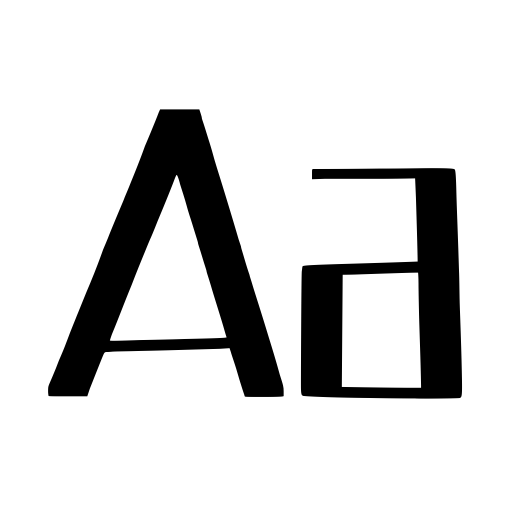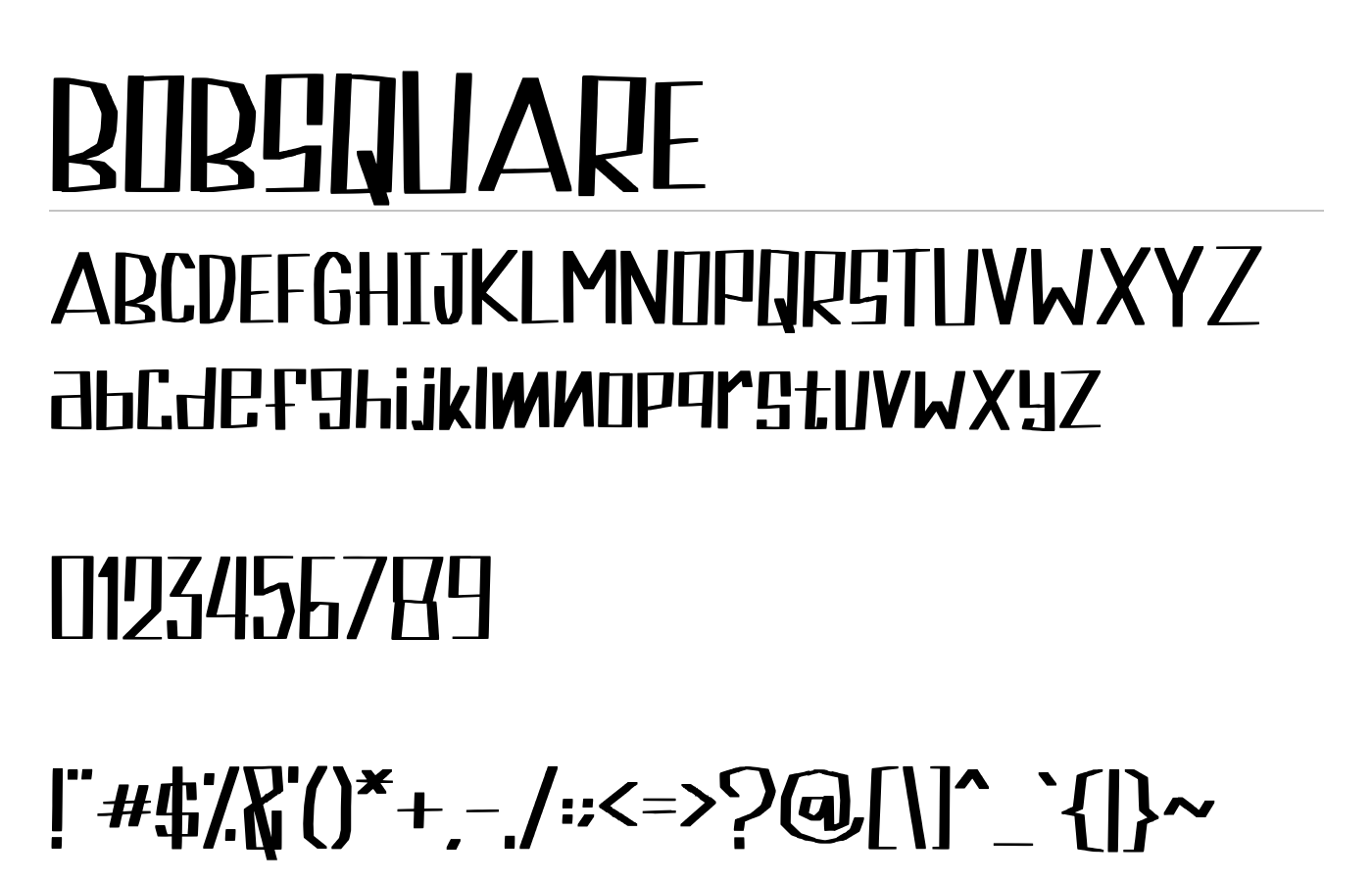
BOBSQUARE is a quirky and modern sans serif font characterized by its tall, narrow letterforms and uneven, hand-crafted style. Its irregular, slightly angular shapes give it a playful yet edgy personality, making it ideal for creative, informal designs like posters, logos, or branding with a unique, artistic vibe. This font shines in display sizes where its distinctive character can stand out and add a dynamic, unconventional touch.
BOBSQUARE Font